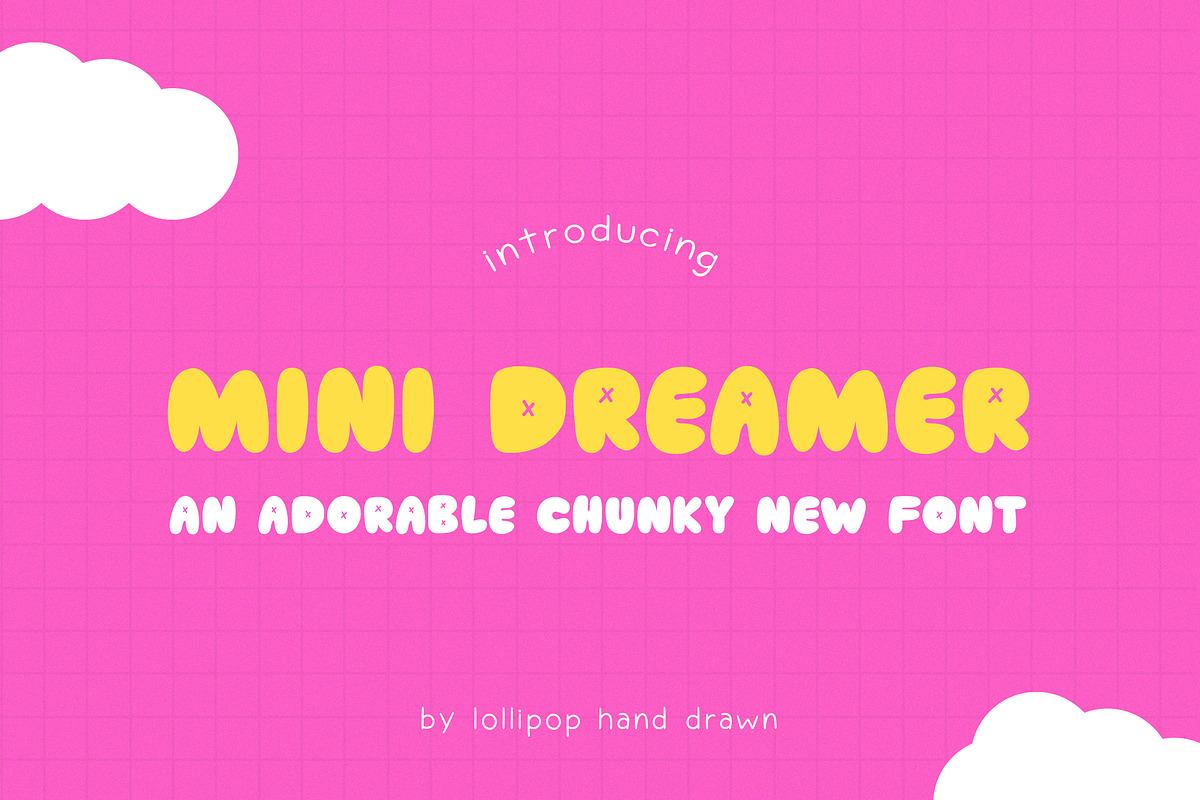
Mini Dreamer Font Free Download is a sweet, whimsical typeface designed to spark imagination and joy. With its soft curves, childlike charm, and handwritten feel, Mini Dreamer is perfect for nursery designs, kids' apparel, storybooks, birthday invitations, and playful branding.
This font radiates warmth and innocence, making it ideal for projects that call for a gentle, heartfelt touch. Whether you’re designing for a toy brand, a baby shower, or a dreamy Instagram post, Mini Dreamer adds magic and softness to every word.
Its clean legibility and friendly look ensure it works beautifully across both print and digital platforms.